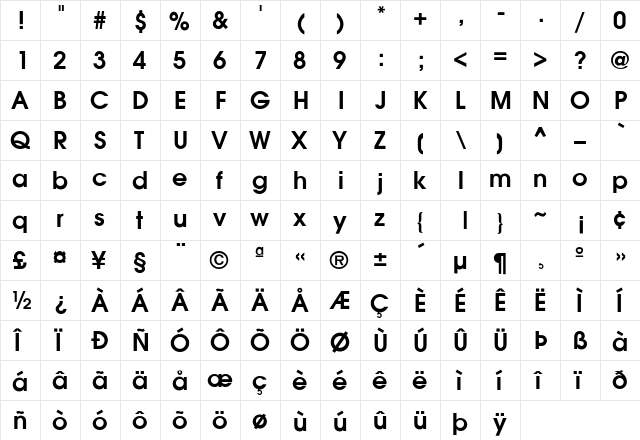
Noveau Riche-Demi Regular Font Preview
Noveau Riche-Demi Regular
Design Context for Noveau Riche-Demi Typeface
Noveau Riche-Demi takes a measured approach to typography — its balanced proportions and neutral character make it a reliable workhorse for both digital and print work.
Pro Tip: Use Noveau Riche-Demi in both headline and body roles to test its range before committing to a single application.